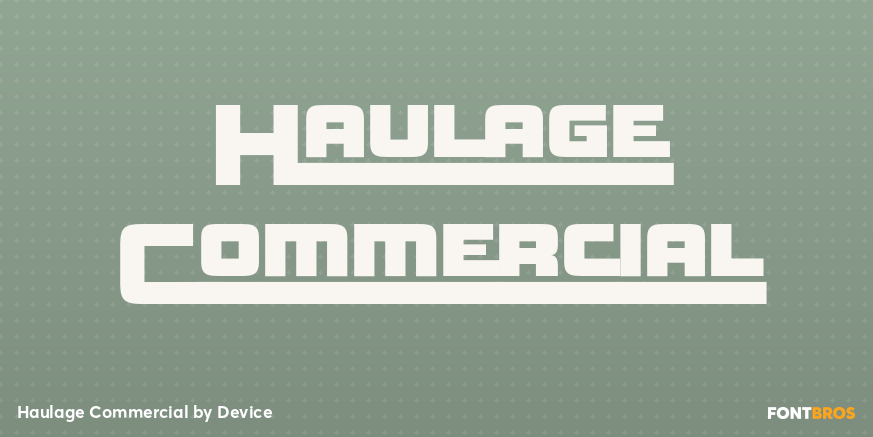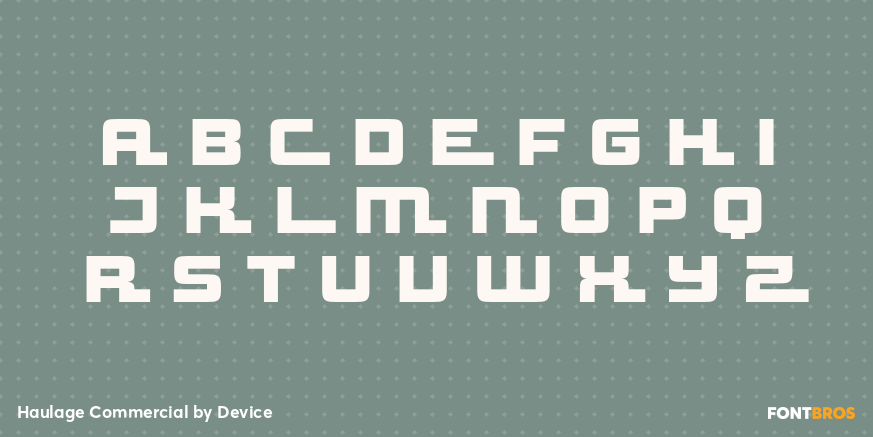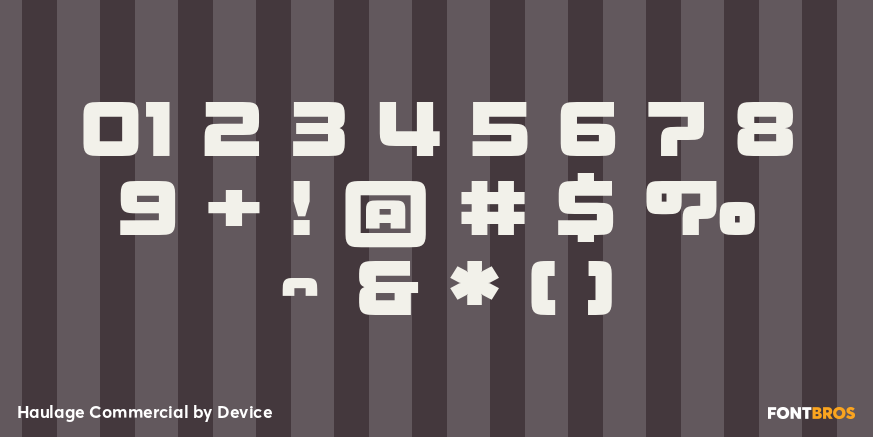
Haulage Commercial
Font Family by Device
Haulage Commercial is a four-style display sans serif family from Device with a bold, retro-commercial look. Its mix of solid and striped styles, plus matching italics, gives it a lively period feel that nods to groovy 1960s and 1970s lettering while still reading with punch and clarity.
With Haulage Commercial Bold, Bold Italic, Striped, and Striped Italic included, this family offers a compact set of expressive options for headlines, posters, packaging, signage, branding, and other decorative display work. The striped cuts bring extra movement and texture, while the heavier solid styles keep the overall look strong and attention-grabbing.
Tagged with influences like groovy and new wave, this family is a smart choice when you want typography that feels graphic, nostalgic, and full of personality without losing its commercial edge.